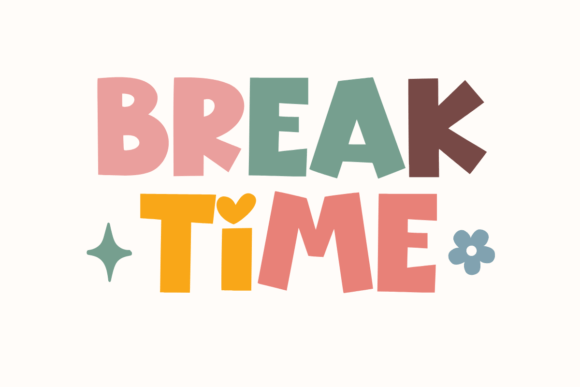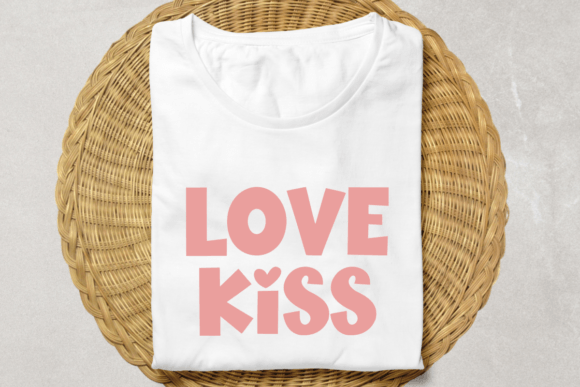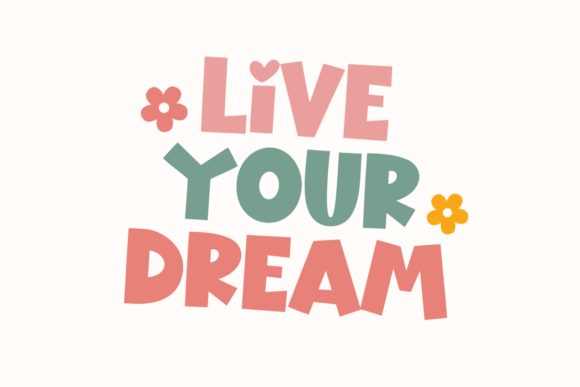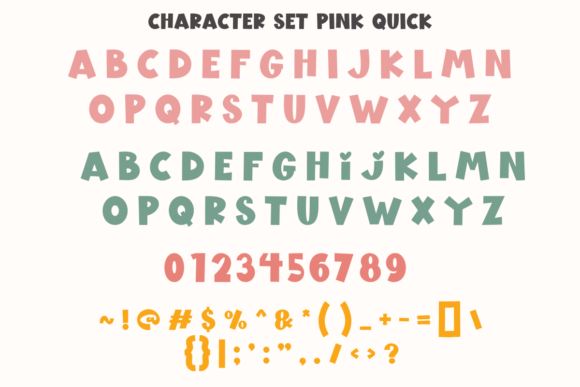
Pink Quick Font
Pink Quick, an inventive font that adds a touch of charm and whimsy to any design project. With its bold lines and playful personality, Pink Quick effortlessly renders itself perfect for adorning a variety of mediums including, but not limited to, crafts, enriching quotes, tote bags, t-shirts, and refreshingly dynamic titles. This font infuses your designs with a fun and quirky aesthetic, impacting viewers with an undeniable impression of creativity and joy.